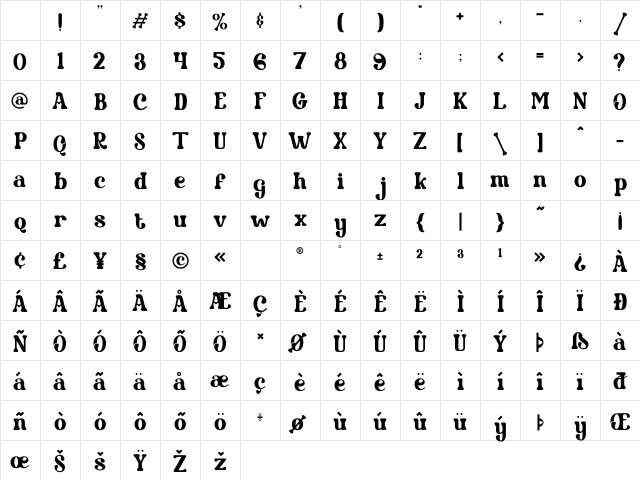
Complete Toasty Curve Regular glyph index. Displaying only characters natively supported by Toasty Curve Regular font.
Toasty Curve is a composed and adaptable typeface that performs quietly and consistently across a wide range of design contexts.